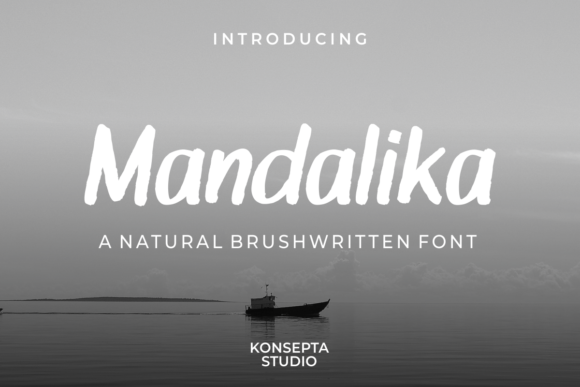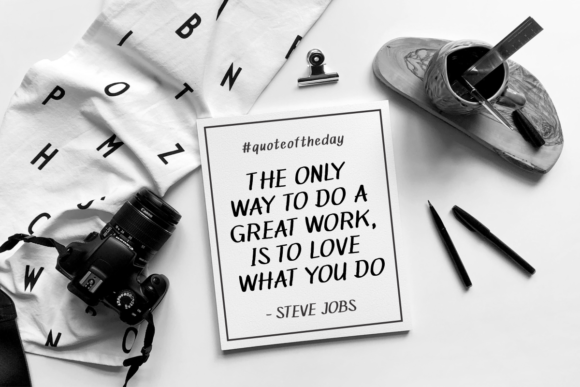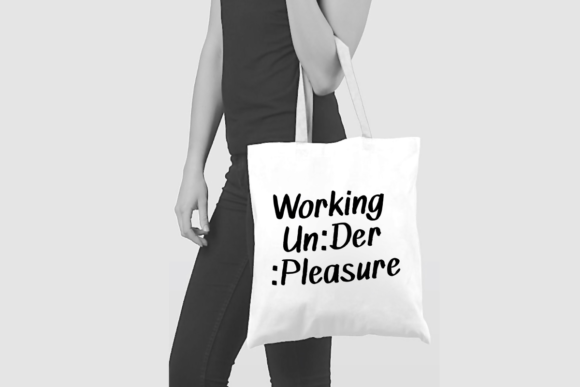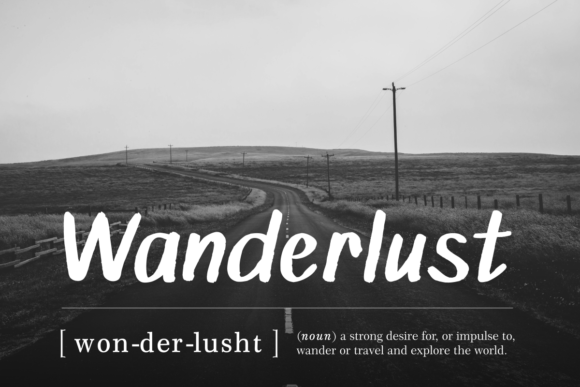
Mandalika Font: Natural Brush Script for Inspiring DIY & Branding
About the Mandalika Font
Step up your design game with Mandalika Font, a font that exudes confidence and style. Mandalika is a natural brush writing font, inspired by the Mandalika princess folklore of Lombok Island.
It is suitable for various design projects, you can use it for motivational quotes, t-shirt designs, logos and more.
Mandalika’s organic, brush-script style excels in headlines, short text blocks, and branding applications where a handcrafted, slightly informal feel is desired. It works particularly well for projects emphasizing nature, travel, or artisanal products. Avoid using it for body text or lengthy passages; its irregular strokes hinder readability in large quantities.
Its personality is both elegant and approachable, lending itself to projects requiring a touch of whimsical sophistication. Consider pairing Mandalika with a clean sans-serif like Montserrat for contrast and improved readability in supporting text, or a classic serif like Playfair Display for a more traditional, luxurious feel.
For a bolder statement, a geometric sans-serif like Futura could be used, creating a dynamic tension between the organic brush strokes and precise geometric forms. However, avoid pairing it with other script fonts as this may create visual clutter.
Mandalika Font Usage Examples
Mandalika Font Example